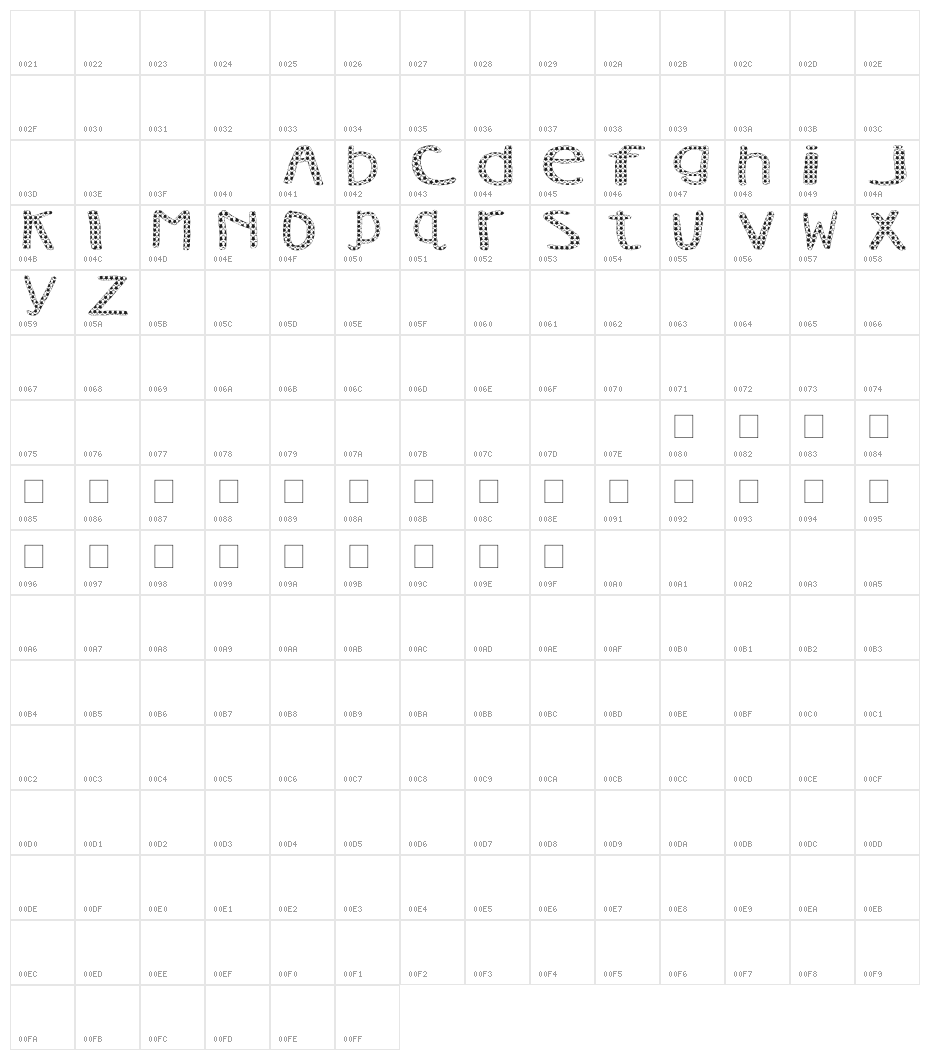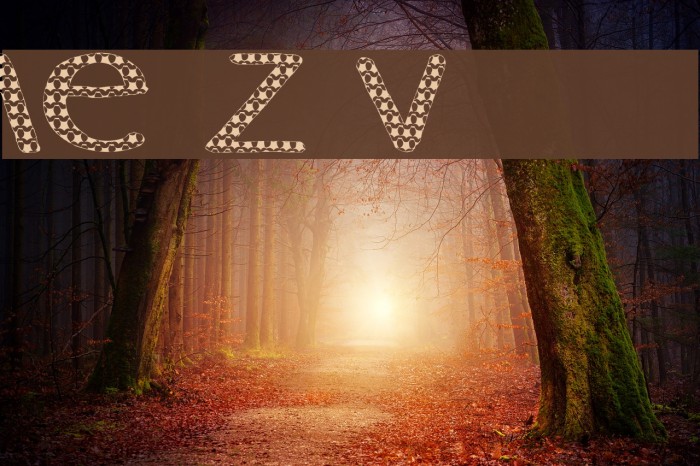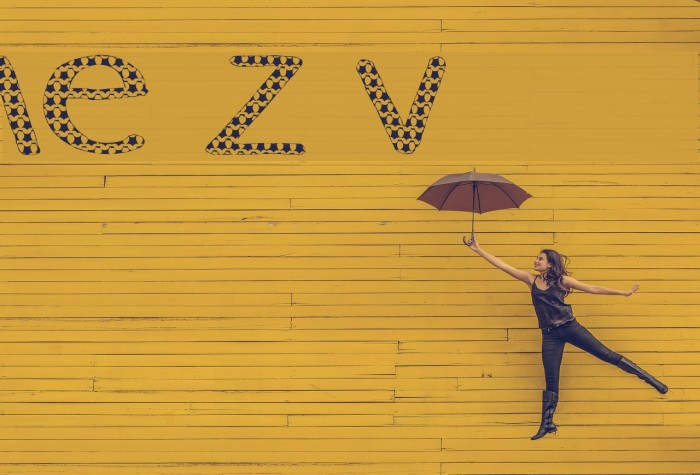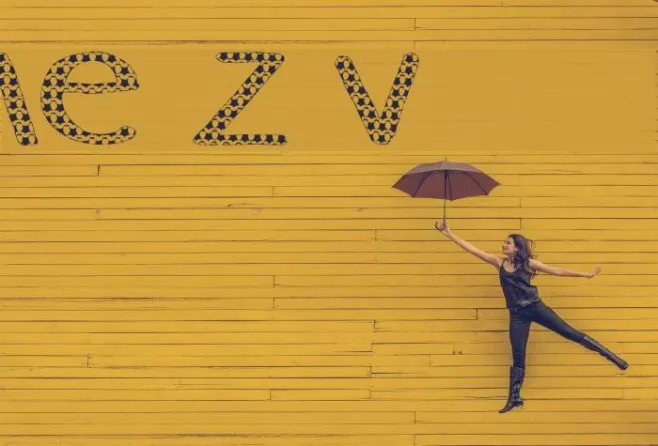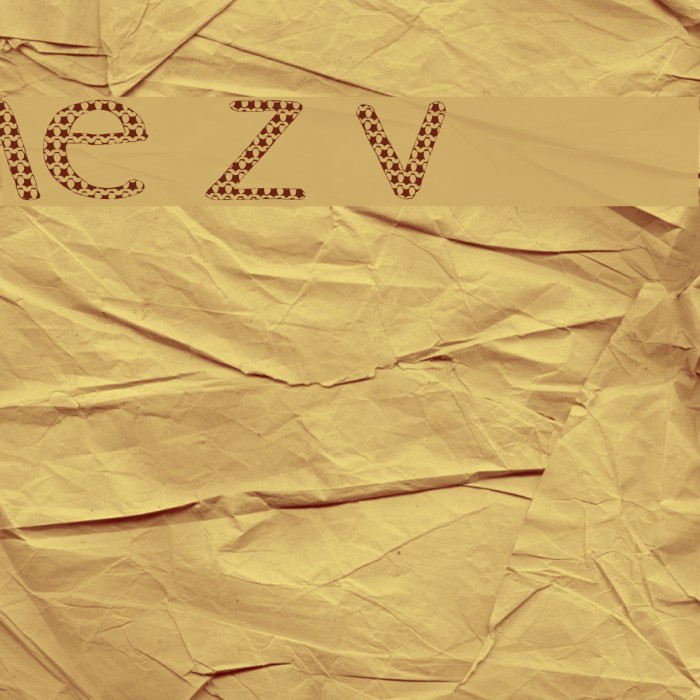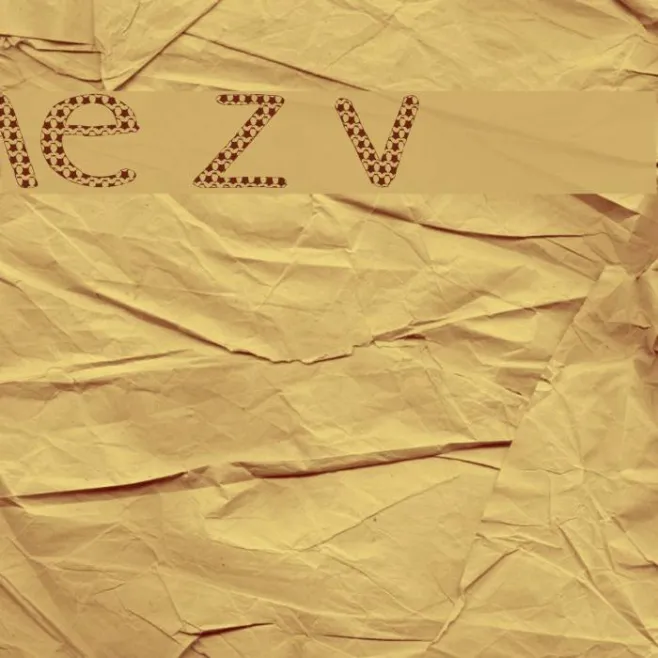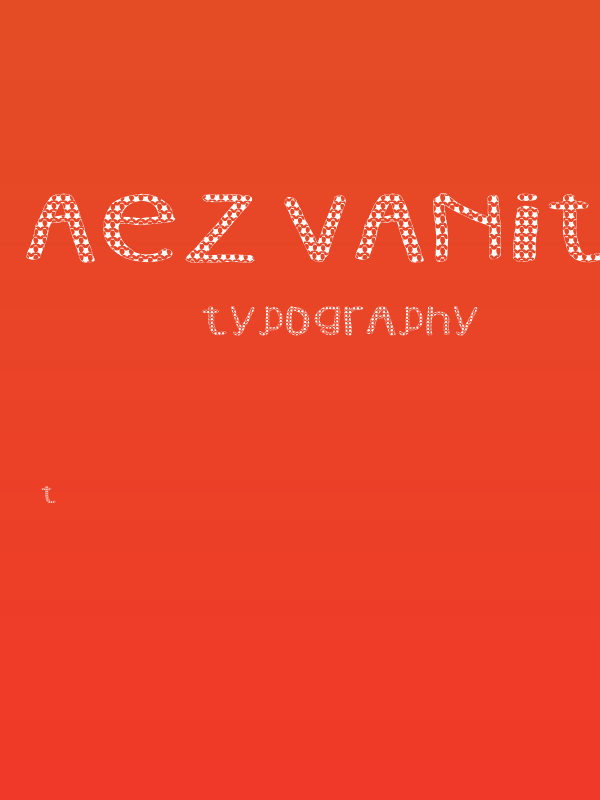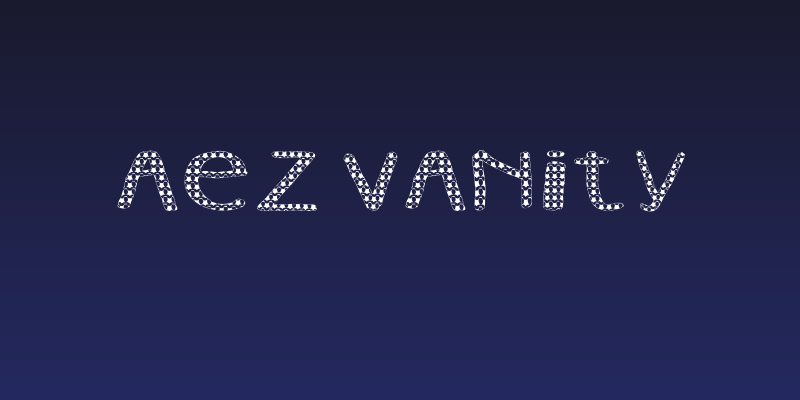
AEZ Vanity Font
AEZ Vanity Description
This font features a playful and decorative style, characterized by its unique pattern-filled letterforms. Each character is composed of a series of dots or circles, creating a textured appearance that stands out. The font maintains a consistent thickness throughout, with rounded edges that add to its whimsical charm. The uppercase and lowercase letters are distinct yet harmonious, making it suitable for creative and artistic projects. The numbers and special characters follow the same design principle, ensuring a cohesive look across all elements.